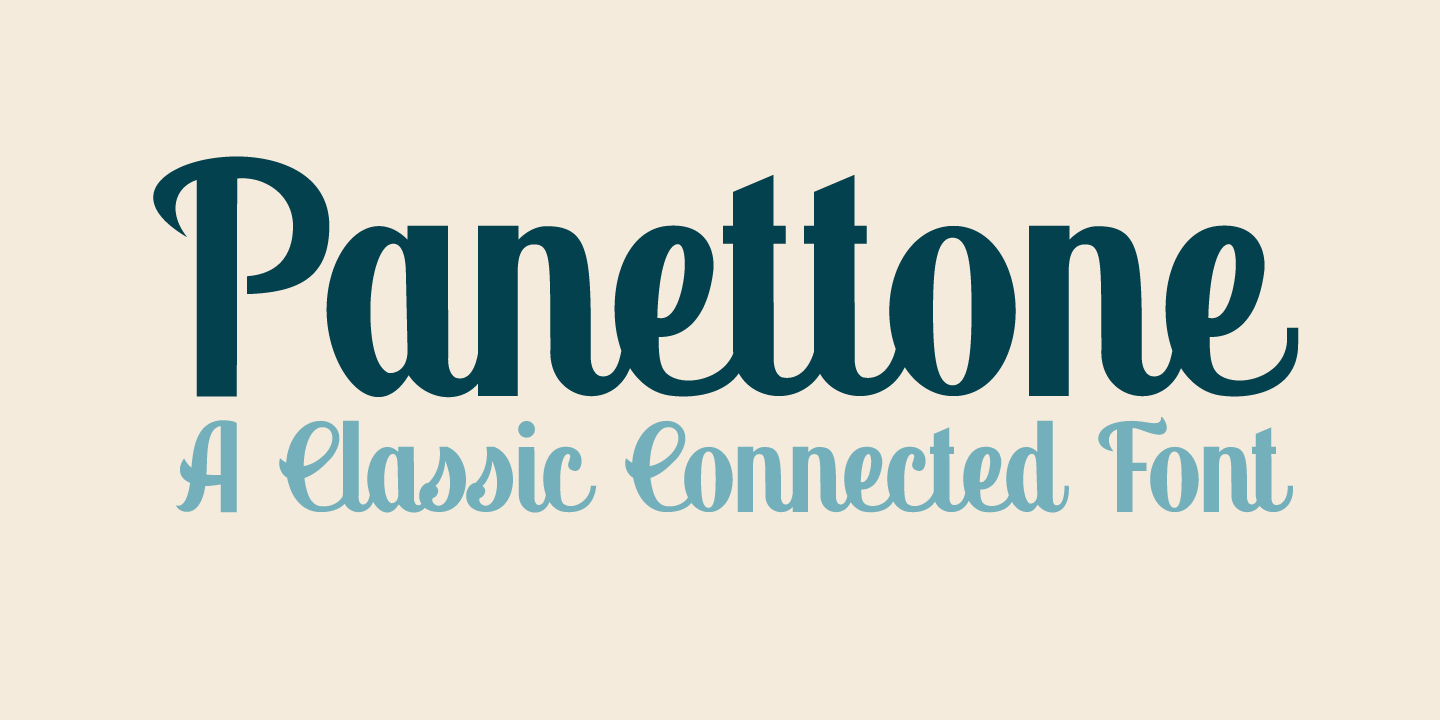
Panettone Font Free Download is a charming and elegant script typeface that brings warmth and personality to your designs. Inspired by the festive spirit of the traditional Italian cake, Panettone is perfect for wedding invitations, greeting cards, branding, and creative projects that require a delicate yet expressive touch.
With its smooth, flowing strokes and refined curves, Panettone offers a natural handwritten feel that adds sophistication and charm. Whether you’re crafting logos, headlines, or quotes, Panettone Font Free Download enhances your typography with grace and style.